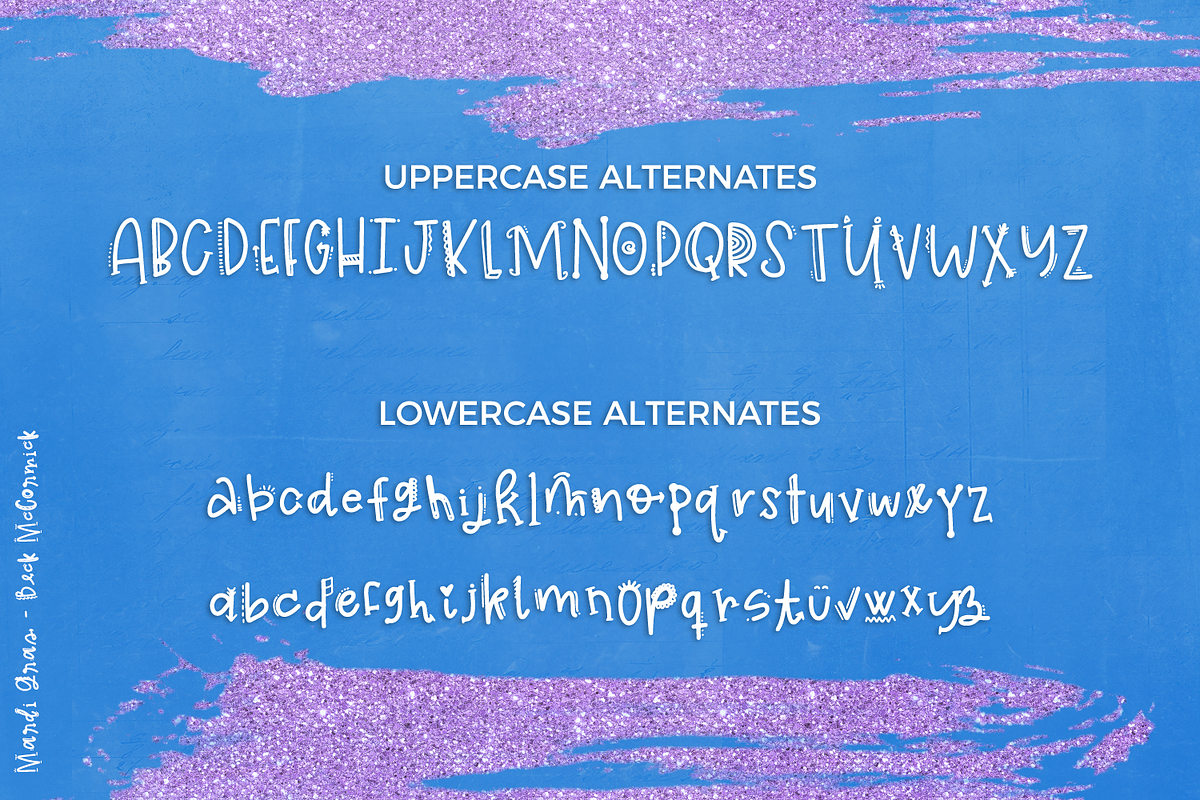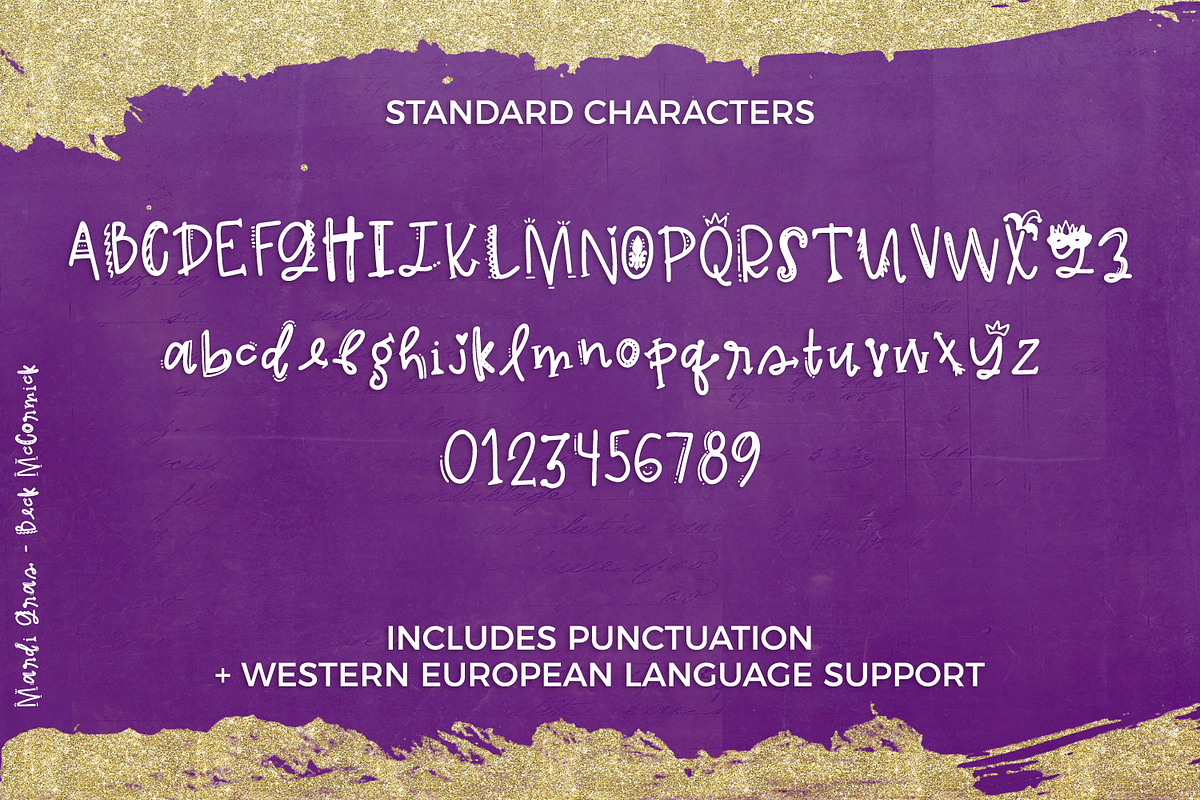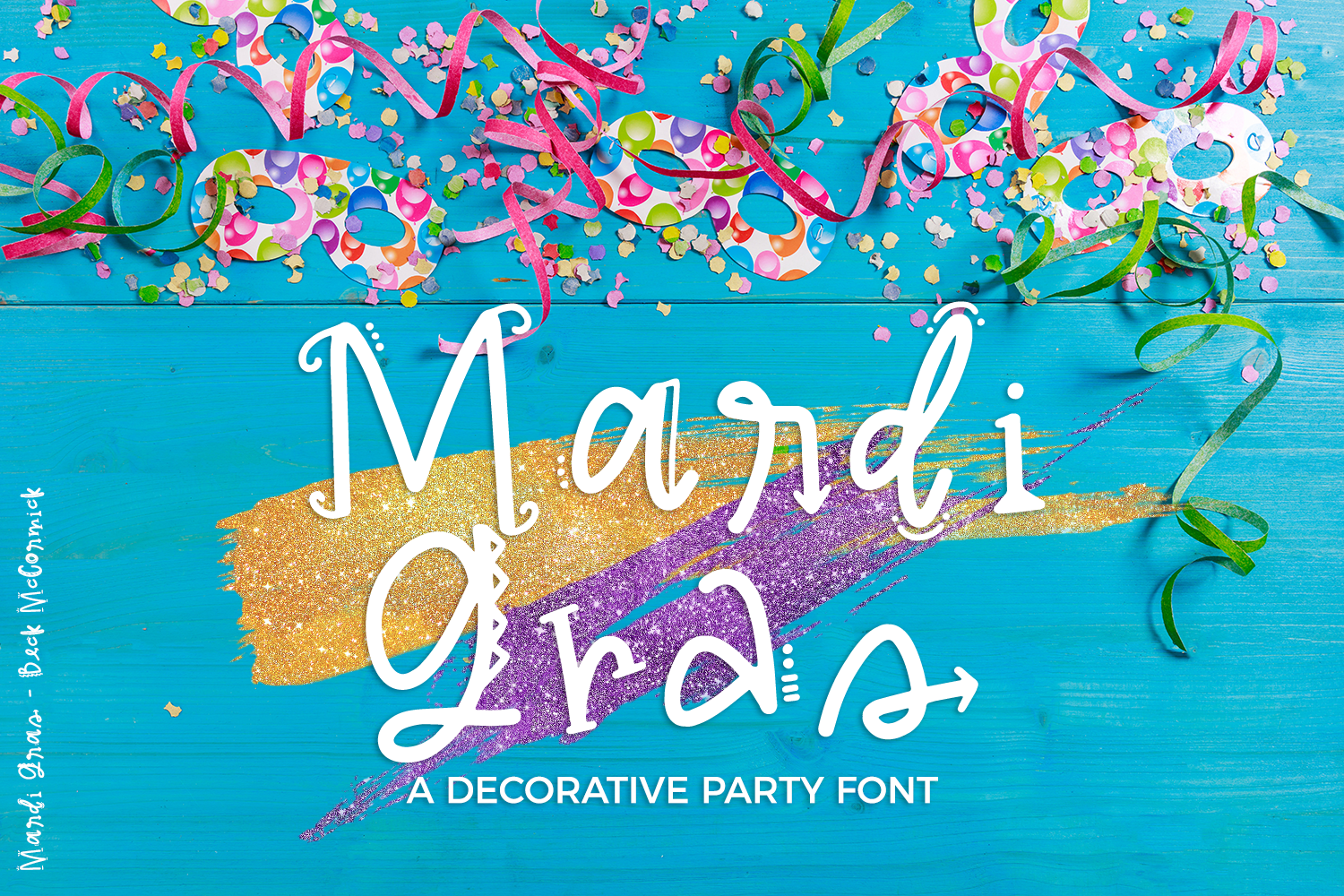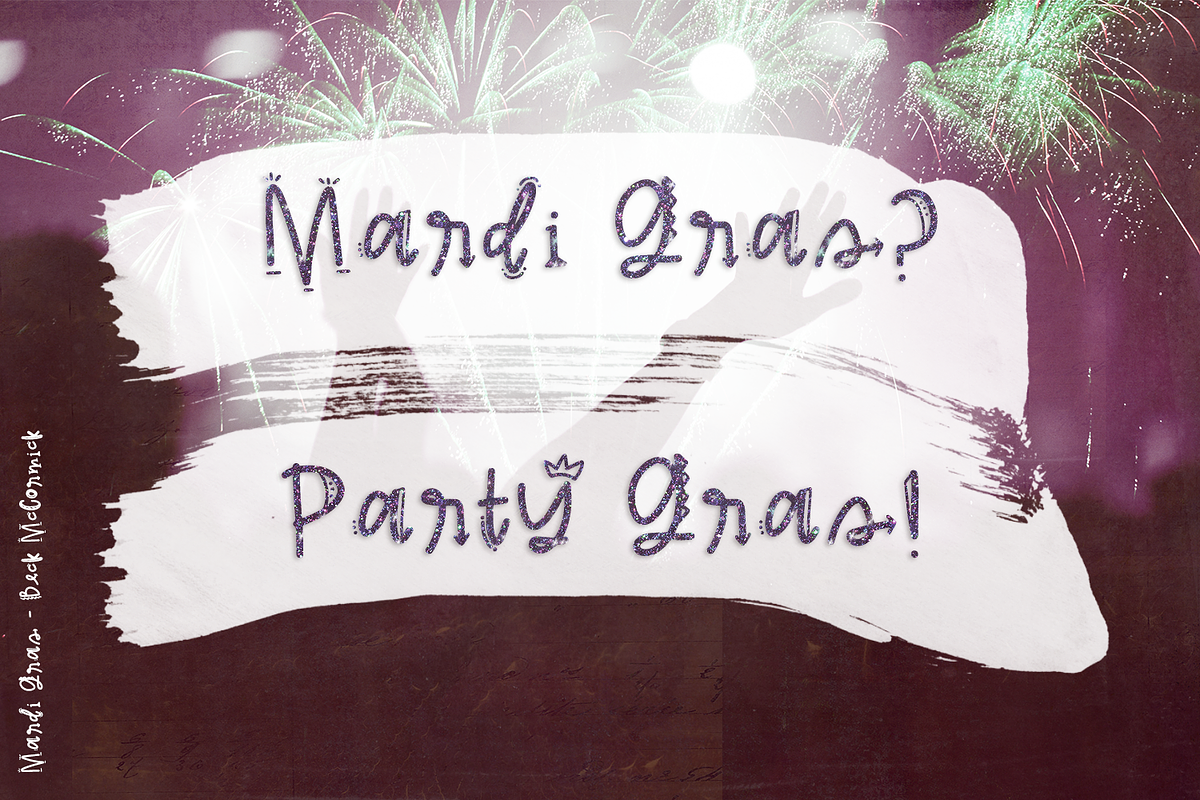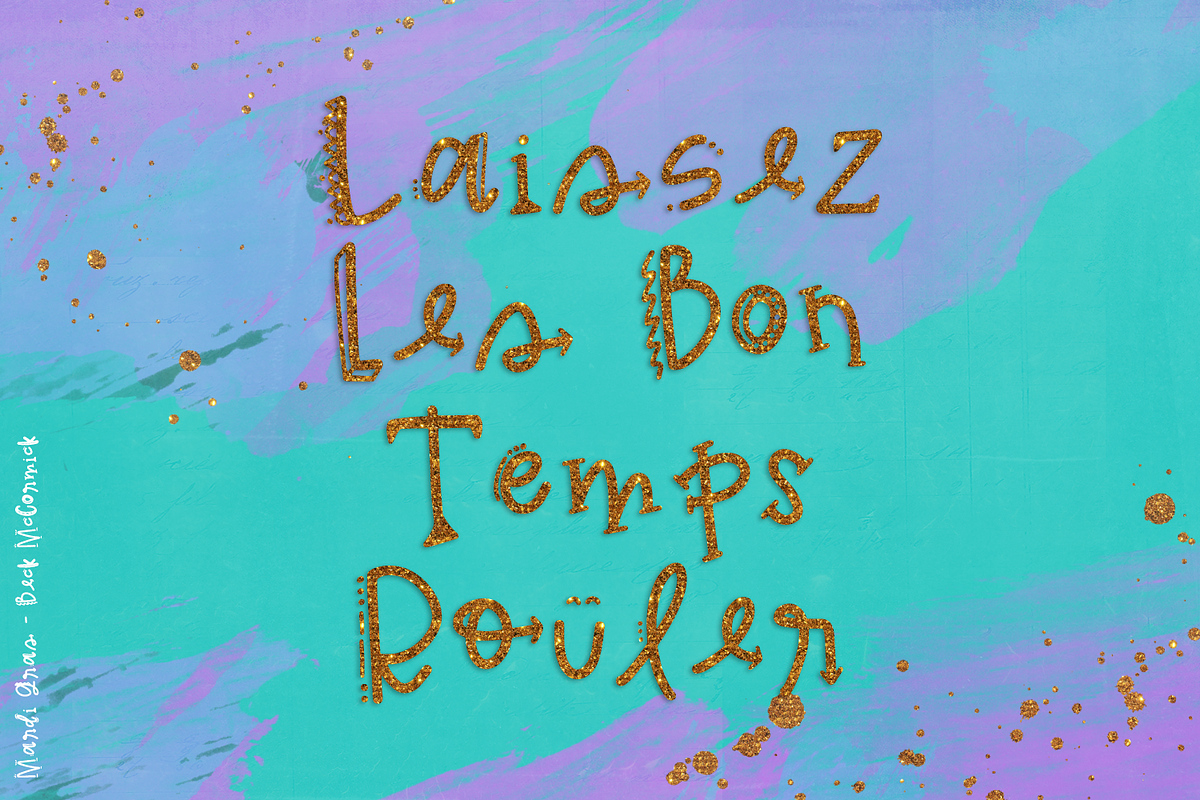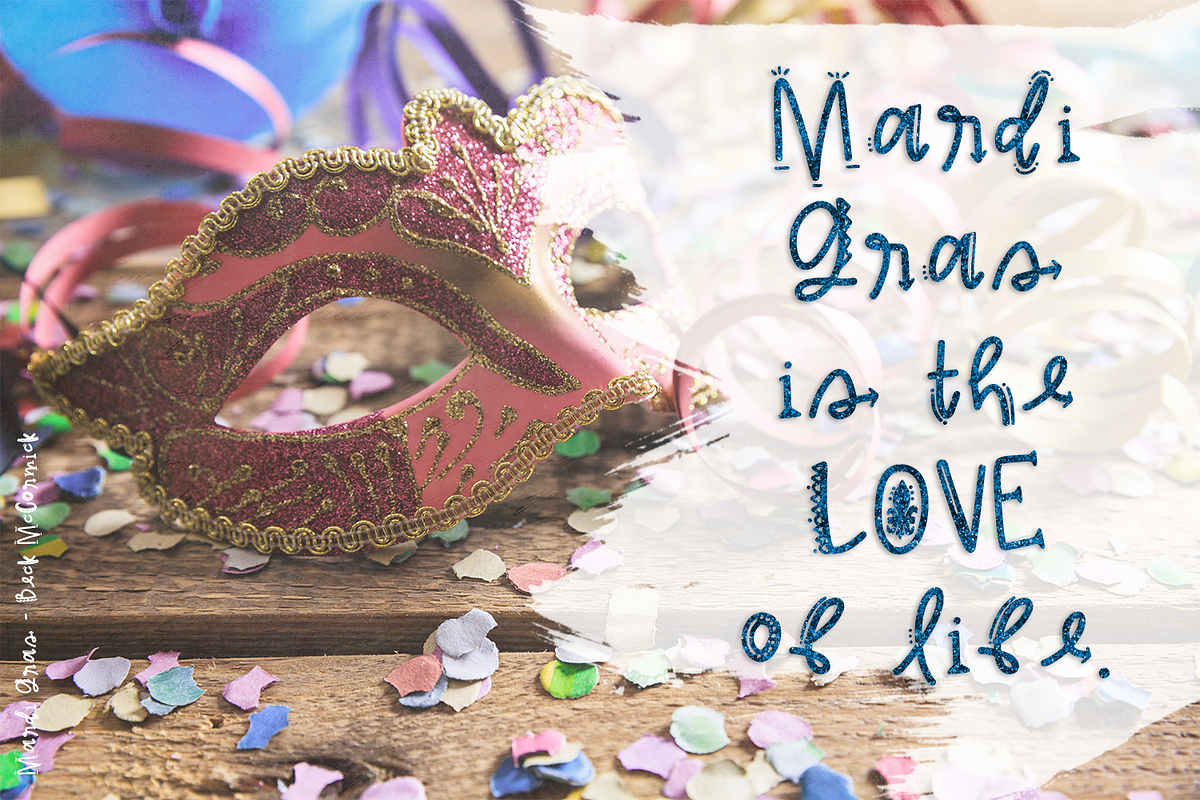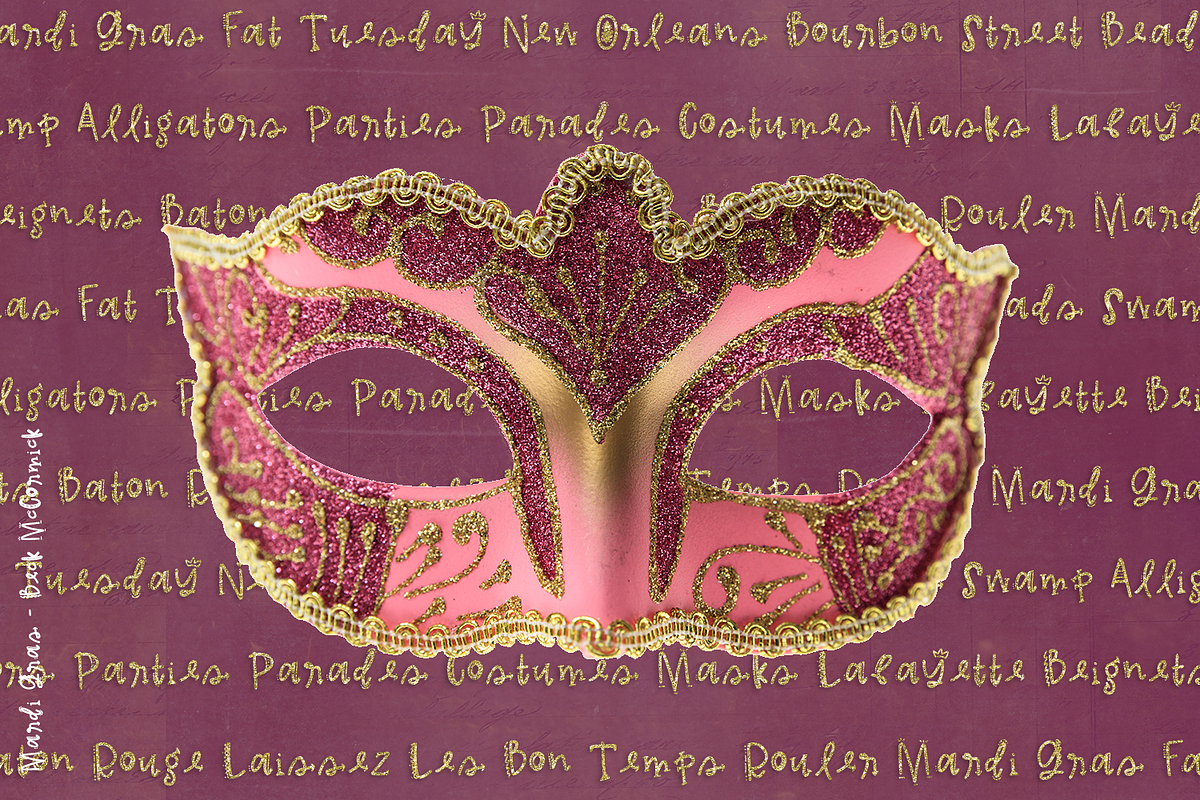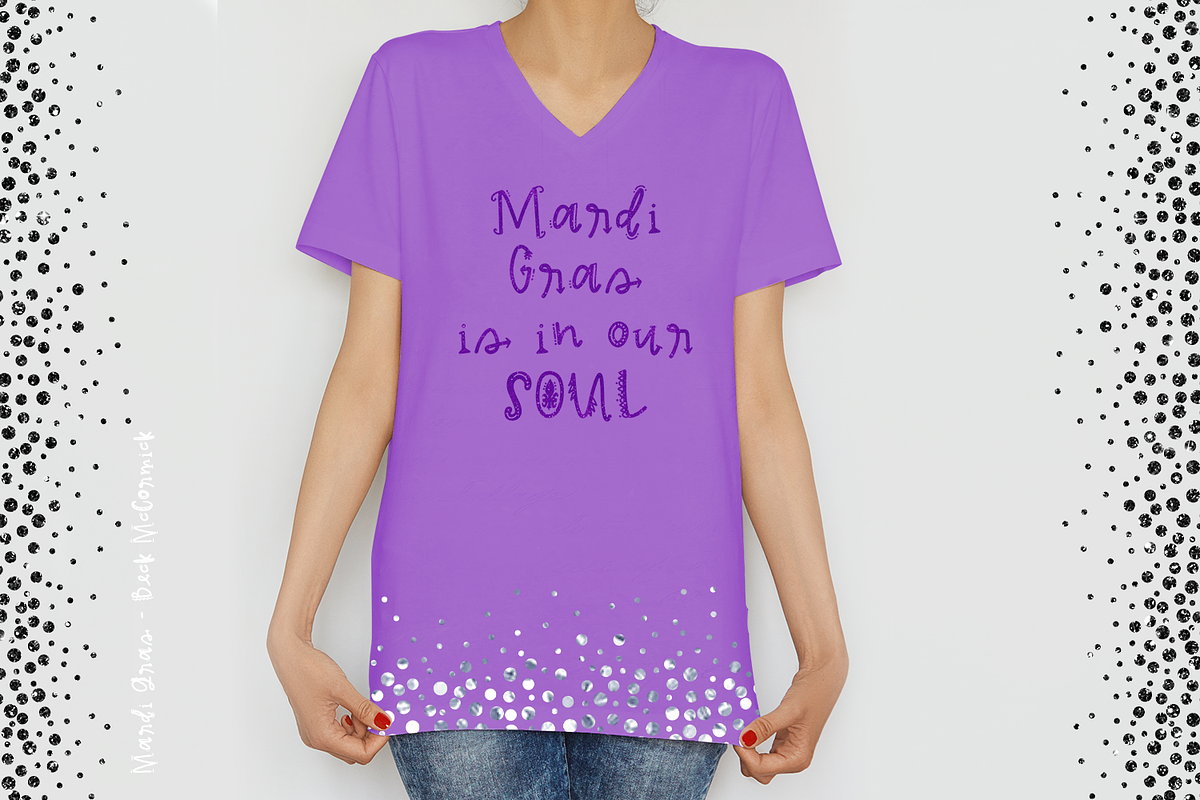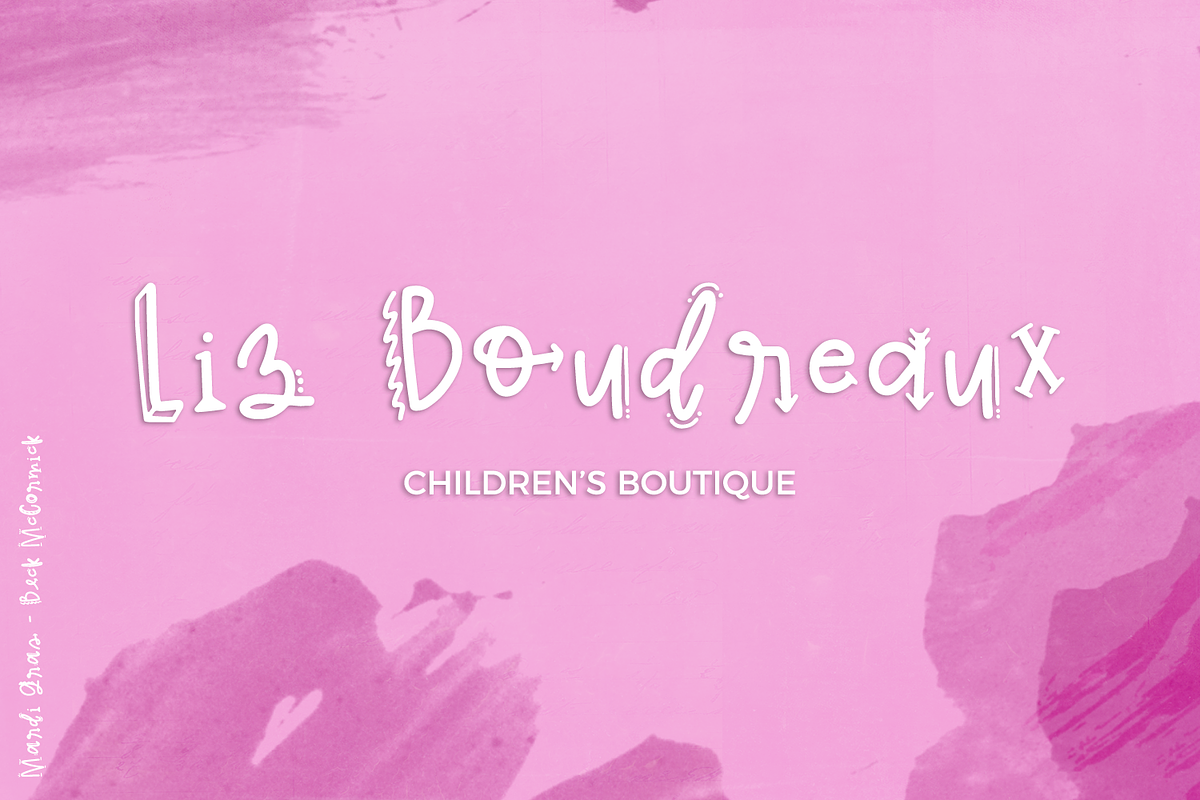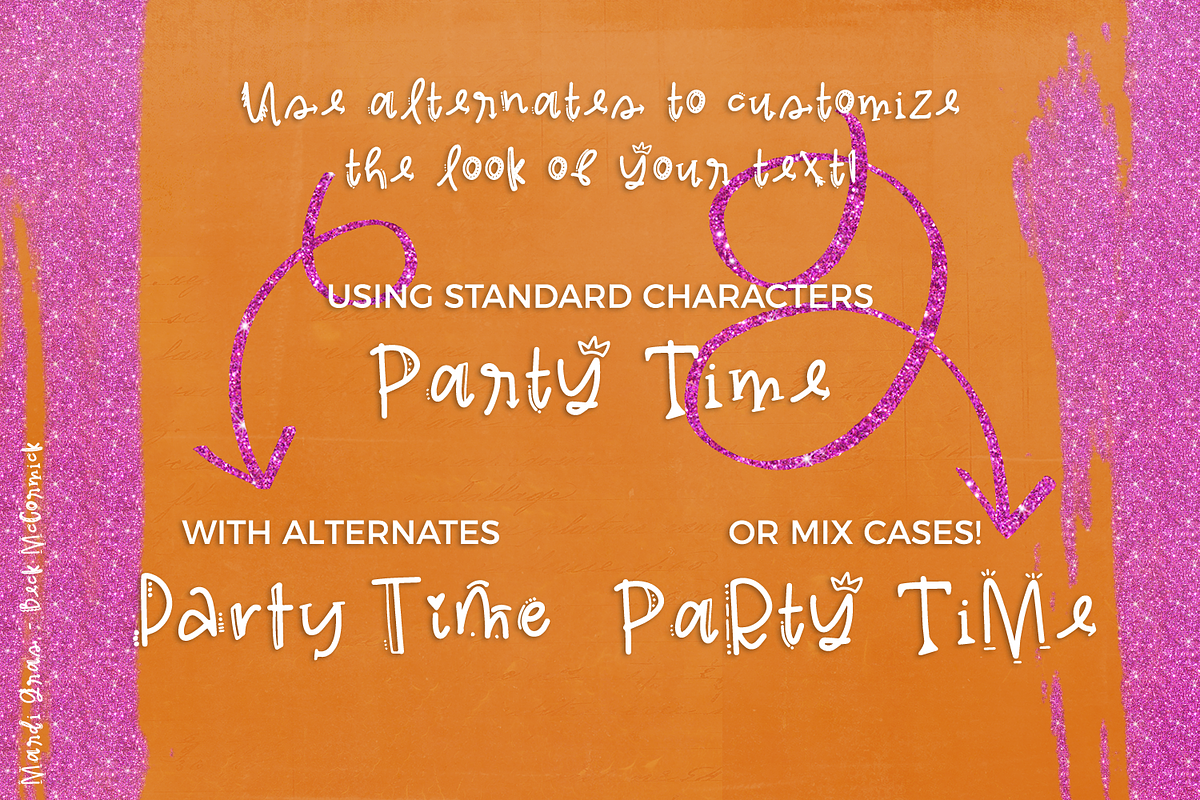
Mardi Gras Party Font
Introducing the super fun Mardi Gras decorative font!
Mardi Gras will be a perfect fit for:
- fun + whimsical projects, or kid-centric brands
- design projects like cards, stationery, or typography creations
- social media graphics + quotes
Mardi Gras includes:
- full upper + lowercase characters
- a full second set of uppercase stylistic alternates
- two full second sets of lowercase alternates
- numbers, punctuation
- Western European Language Support